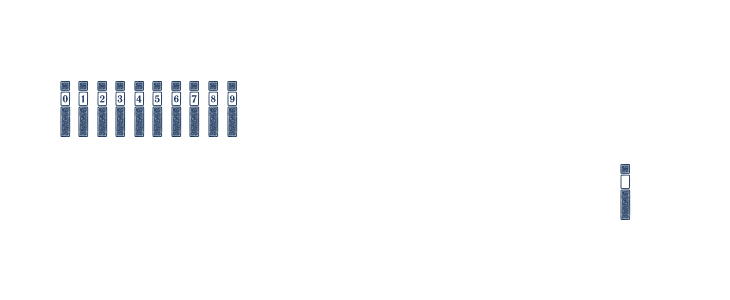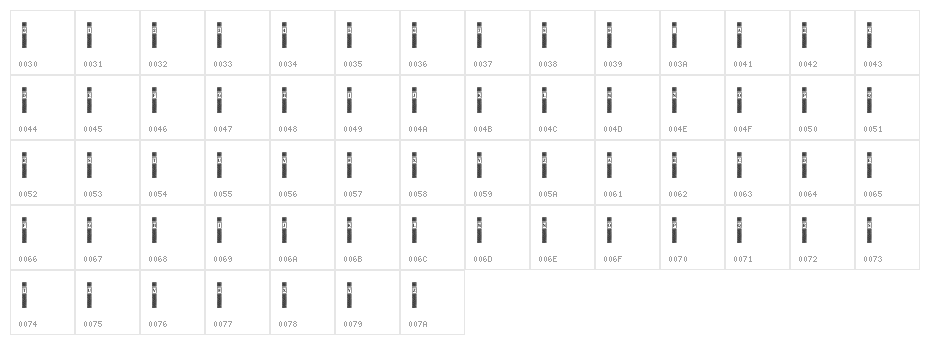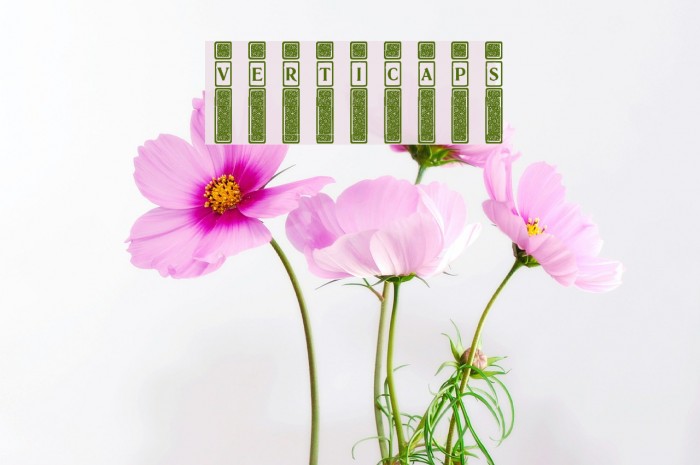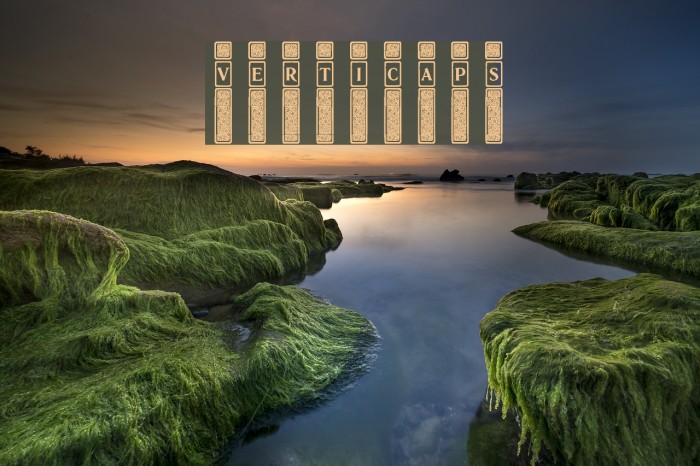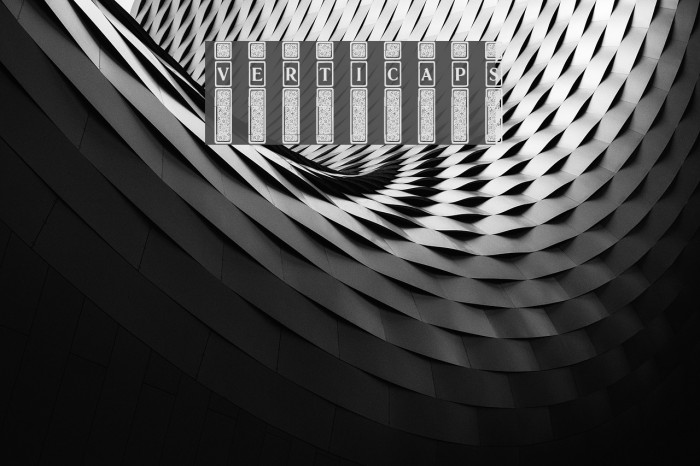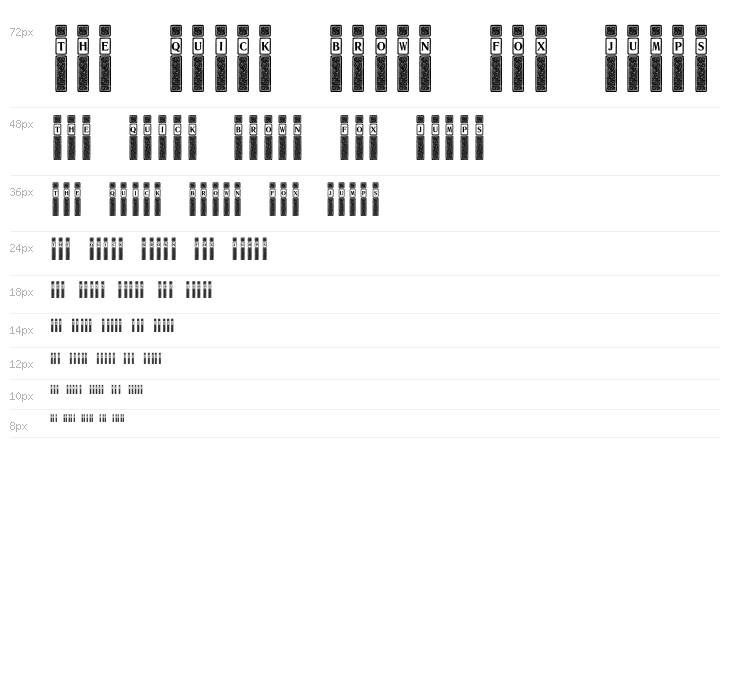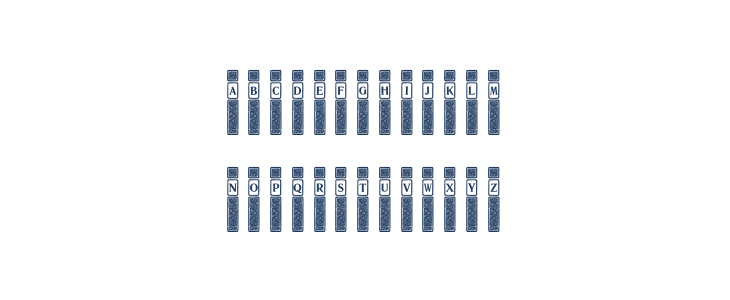
VertiCaps Font
VertiCaps Description
This font features a unique vertical orientation with each character enclosed in a rectangular box. The design is bold and striking, with a modern and decorative flair. The uppercase and lowercase letters are identical, emphasizing uniformity and clarity. The numbers and special characters follow the same vertical boxed style, maintaining consistency across the entire set. This font's distinct structure makes it stand out, offering a visually appealing option for creative projects.